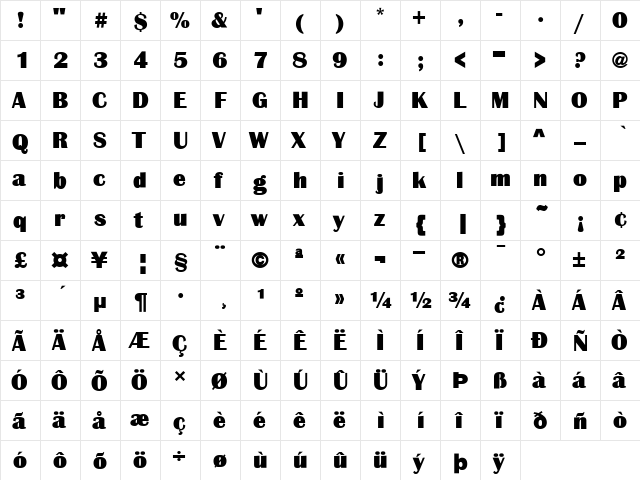
Britannic D Regular Font Preview
Britannic D Regular
Britannic D Regular Font Details
Design Context for Britannic D Typeface
Britannic D offers clean, dependable letterforms without strong stylistic allegiance, making it a practical choice for designers who need flexibility.
Pro Tip: Use Britannic D in both headline and body roles to test its range before committing to a single application.